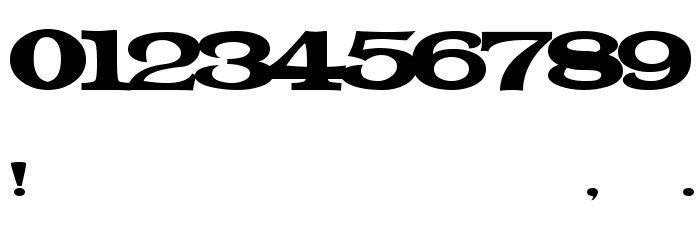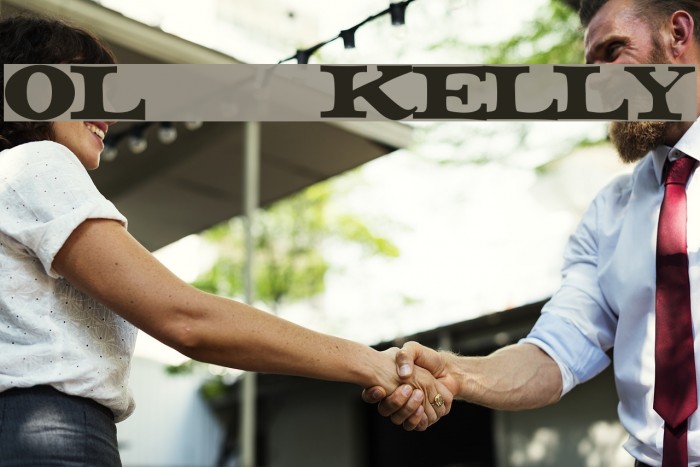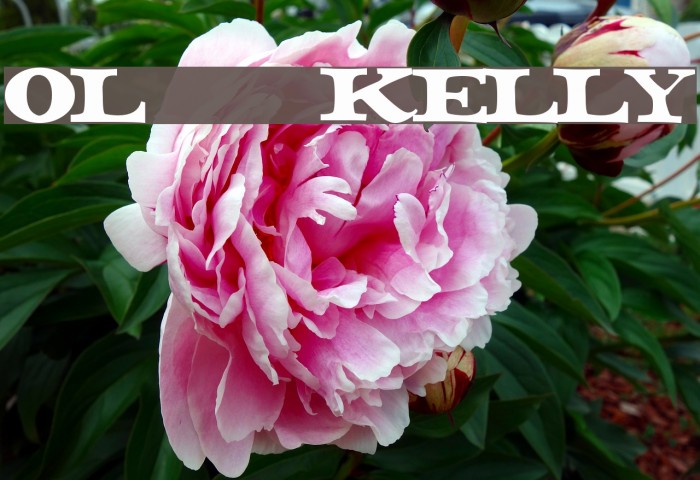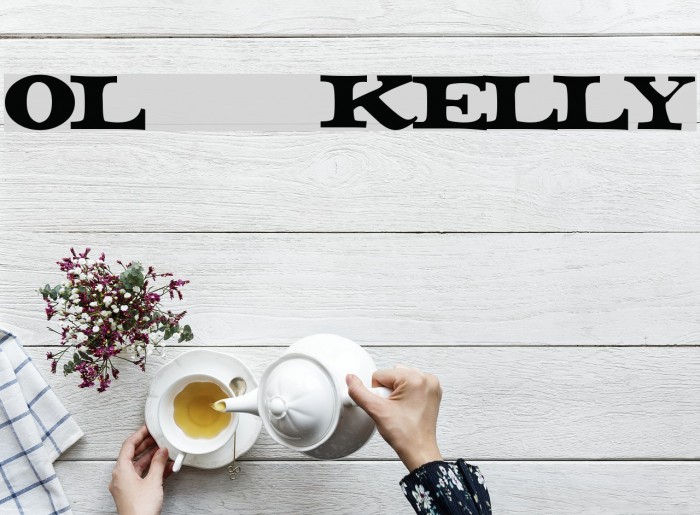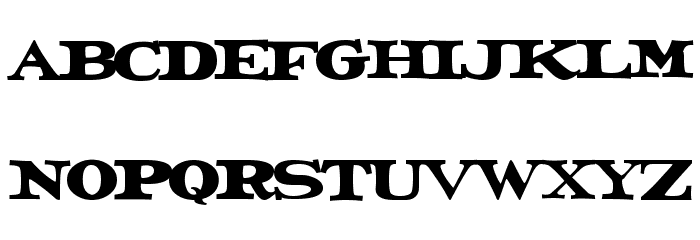
Ol' Kelly Font
Ol' Kelly Description
This font features a bold and dramatic style with thick, heavy strokes and high contrast between thick and thin lines. The characters have a distinct, decorative flair, with sharp serifs and unique embellishments that give it a vintage and theatrical appearance. The uppercase letters are particularly striking, with a strong presence that commands attention. The numerals and punctuation marks maintain the same boldness and decorative style, ensuring consistency across all characters.
- Overall Style: Vintage